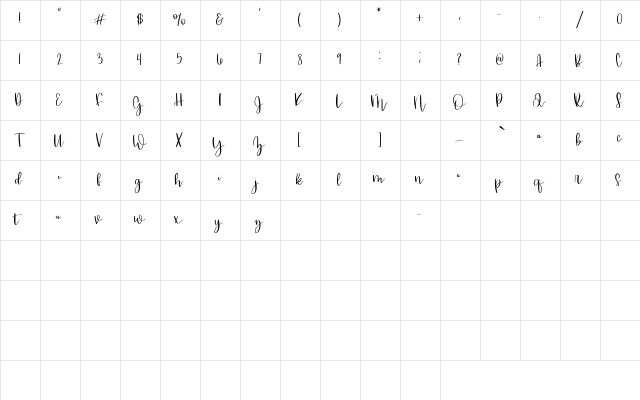
Butterscotch Meringue Regular
Design Context for Butterscotch Meringue Typeface
Butterscotch Meringue is a composed and adaptable typeface that performs quietly and consistently across a wide range of design contexts.